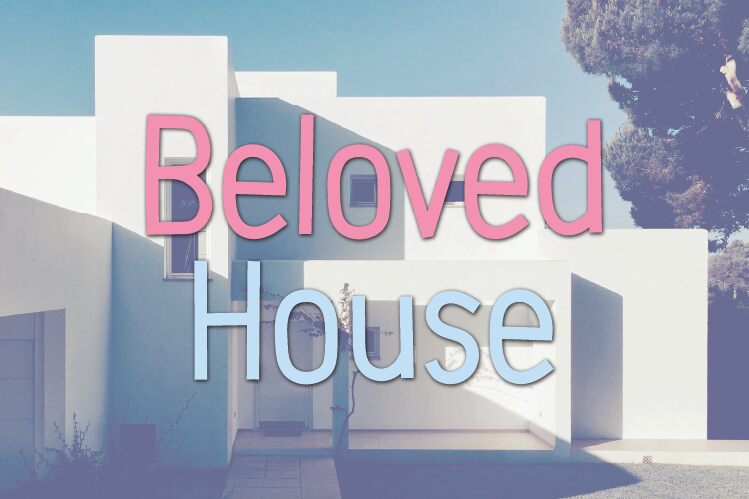
Beloved House font, crafted by Hanna Bie, is a captivating addition to the world of display fonts. With its comic style, this font radiates a playful and approachable charm. The letters feature rounded shapes and bold strokes, adding a sense of warmth and friendliness to any design.
Ideal for creating eye-catching headlines or adding personality to posters and flyers, Beloved House stands out with its versatile aesthetic. Its engaging appearance makes it perfect for children's books, casual branding projects, or any creative endeavor seeking a lively touch.
Beloved House